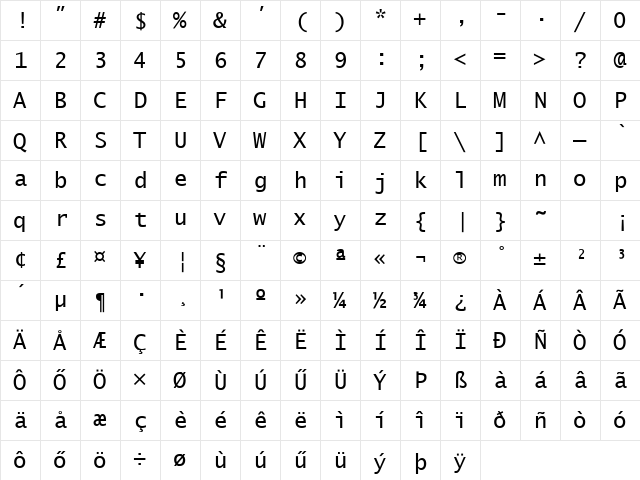
Complete Facsimile Gothic DTC Regular glyph index. Displaying only characters natively supported by Facsimile Gothic DTC Regular font.
Facsimile Gothic DTC takes a clean, functional approach - its unadorned letterforms prioritise legibility and work reliably across screen and print environments.
Font Pairing: Works well alongside a characterful serif or display font that can carry the expressive load while Facsimile Gothic DTC handles the functional copy.
Pro Tip: Use Facsimile Gothic DTC for UI labels, navigation, and short-form body copy where clean legibility is the priority.